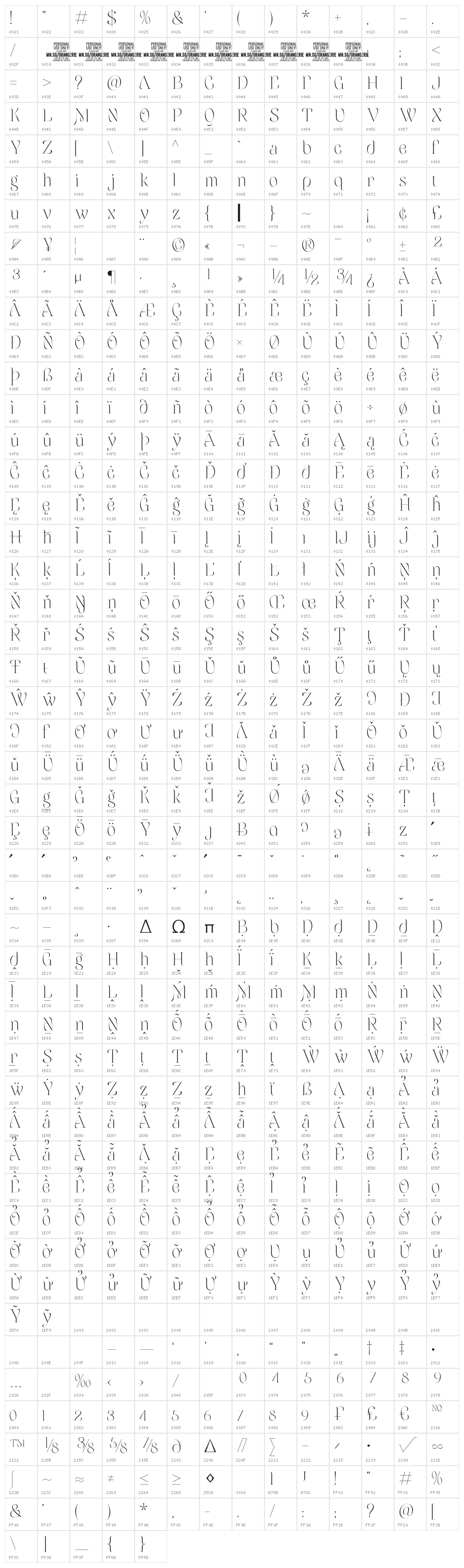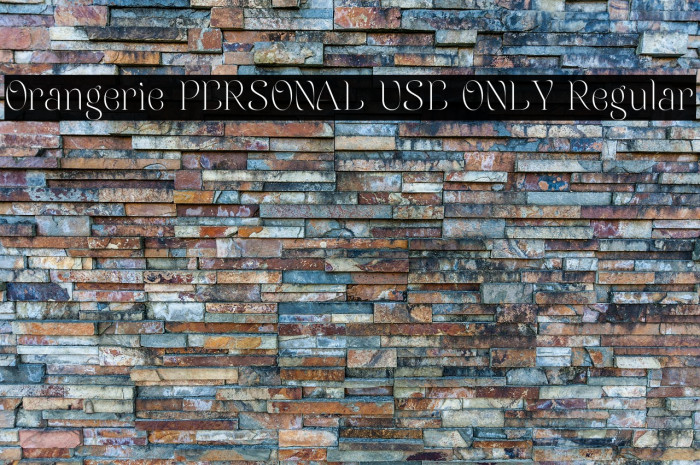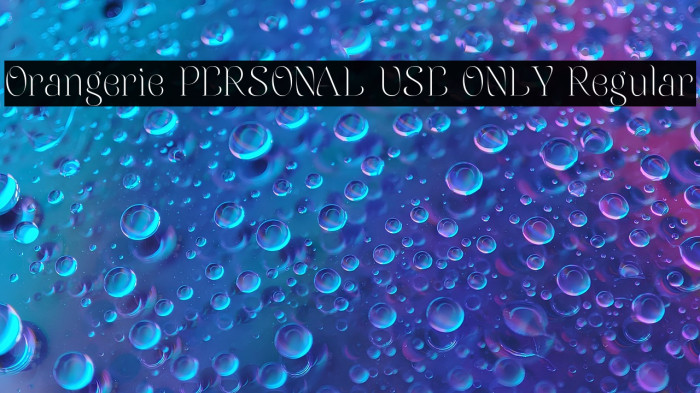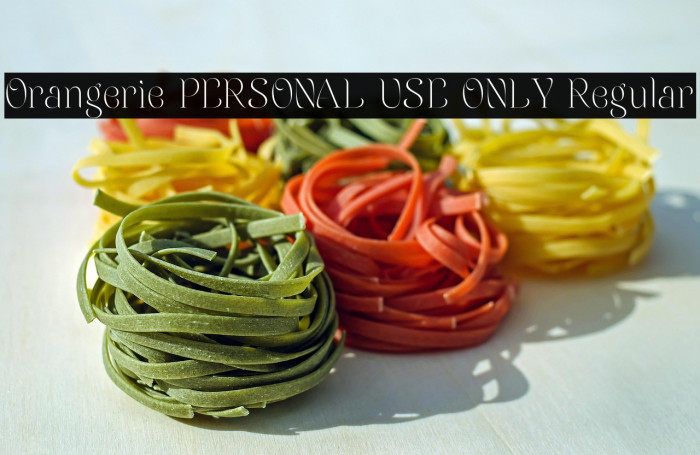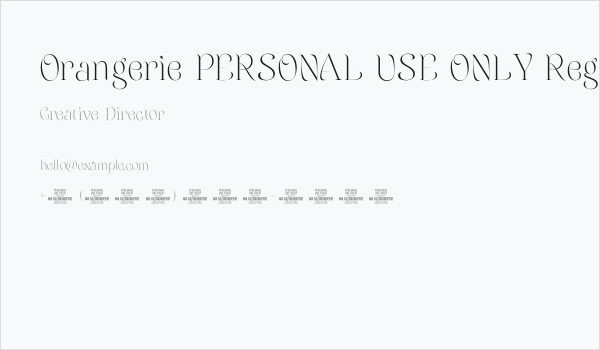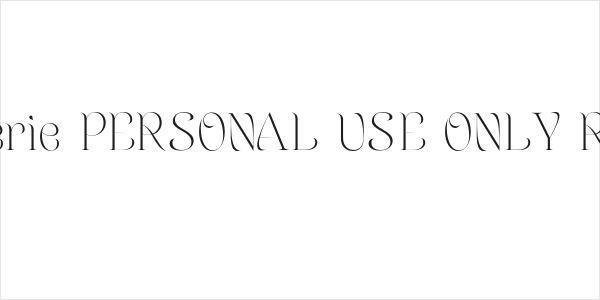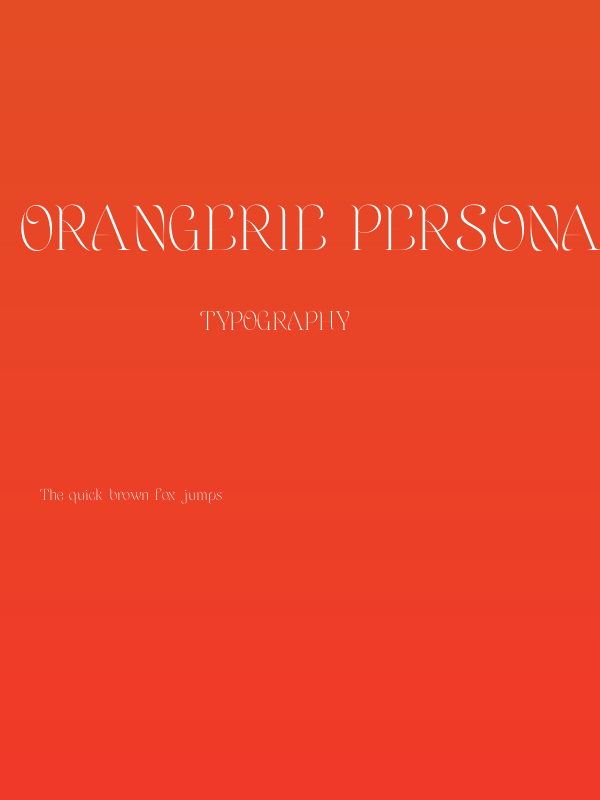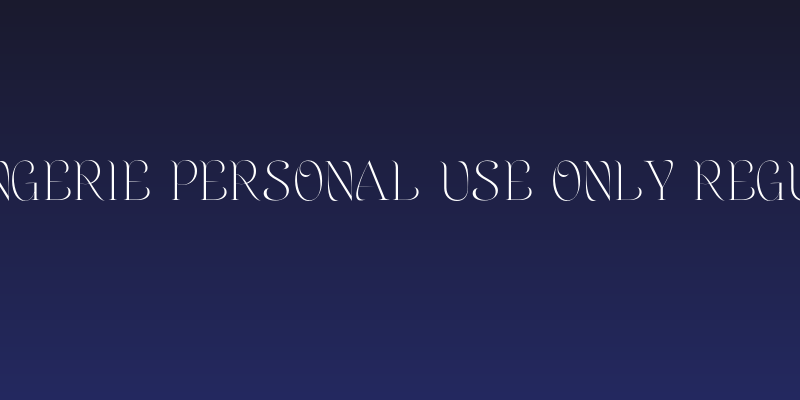
Orangerie PERSONAL USE ONLY Regular Font
Orangerie PERSONAL USE ONLY Regular Description
This elegant and sophisticated font features a blend of modern and classic elements, characterized by its thin, elongated strokes and high contrast between thick and thin lines. The uppercase letters exhibit a graceful, flowing style with unique curves and flourishes, while the lowercase letters maintain a consistent, harmonious appearance. The numerals and special characters are designed with the same attention to detail, offering a cohesive look across all glyphs. This font's refined aesthetic makes it suitable for a variety of design applications.
| Overall Style | Elegant and sophisticated |
| Proposed Projects | Ideal for luxury branding, wedding invitations, editorial design, and high-end product packaging. |